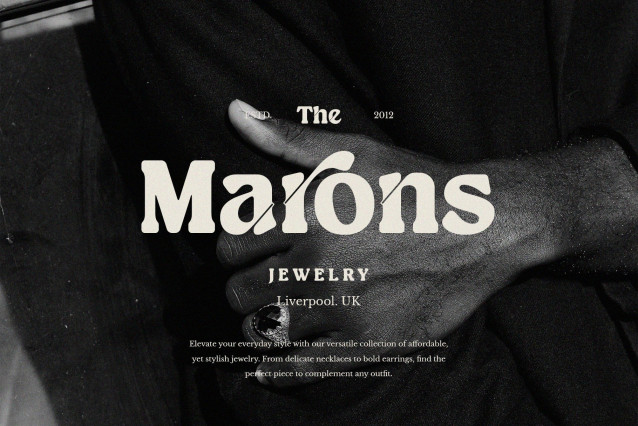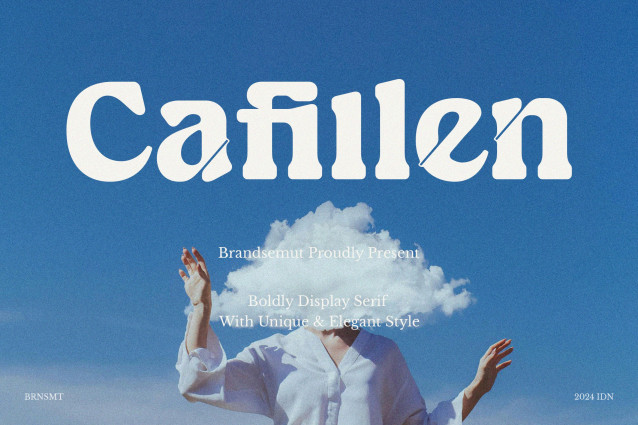
Cafillen Font
Cafillen Font is a elegant, classy and modern display serif, best used as a display for headings, logos, branding, magazines, product packaging and invitations. Cafillen equipped with Ligature and many Alternates and come with clean lines and smooth curves give any project an extra touch of class.